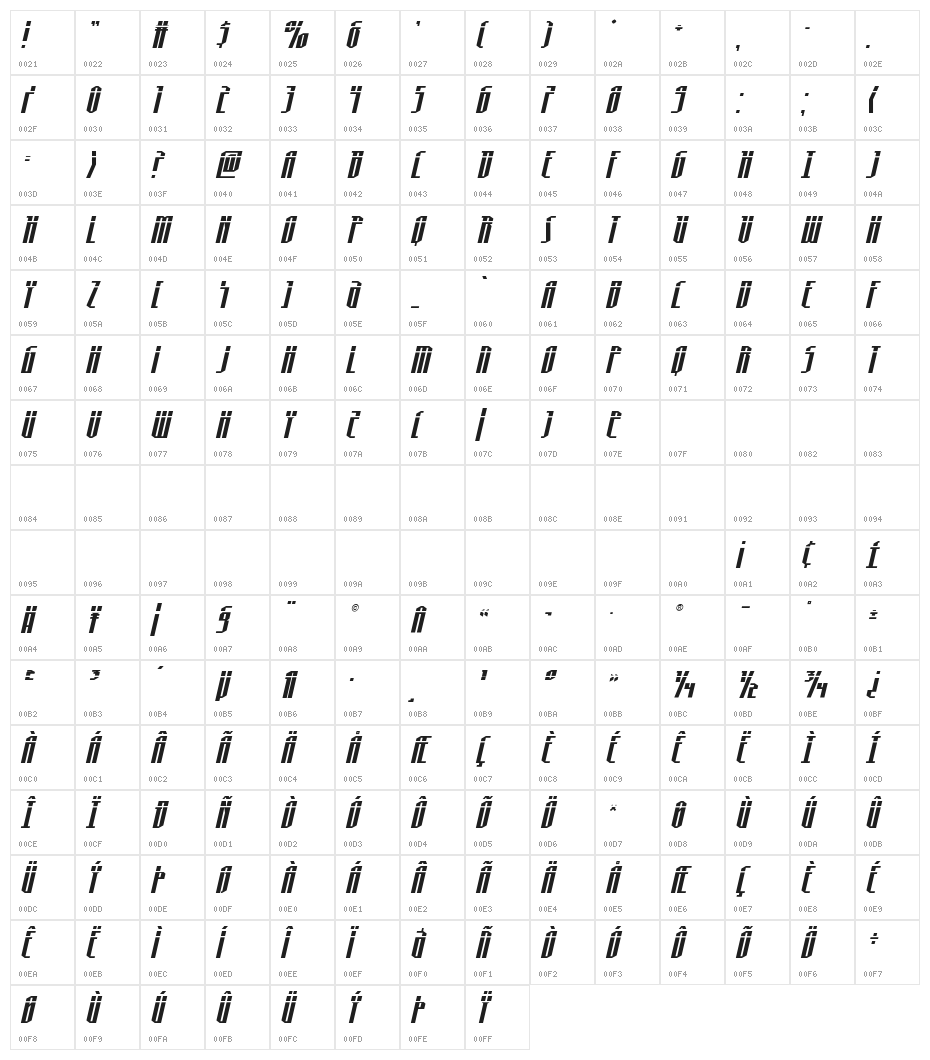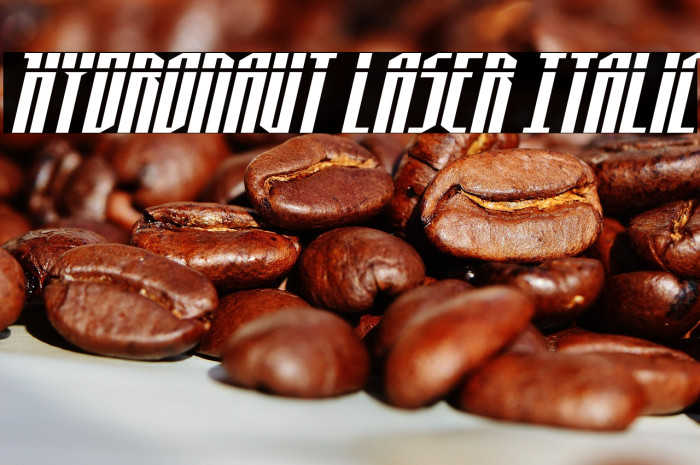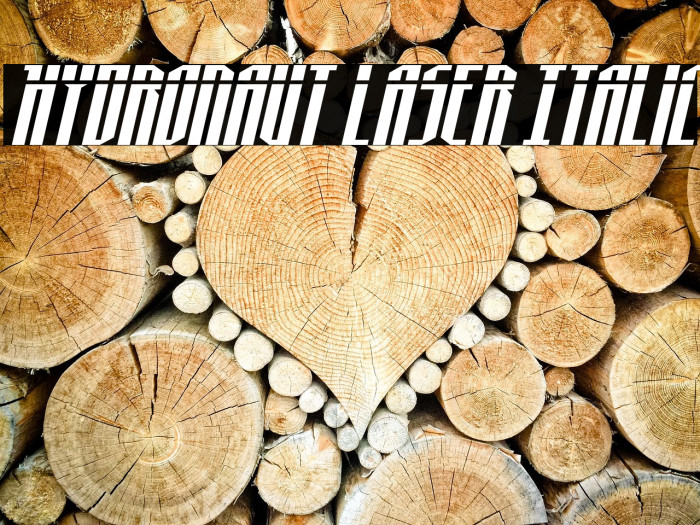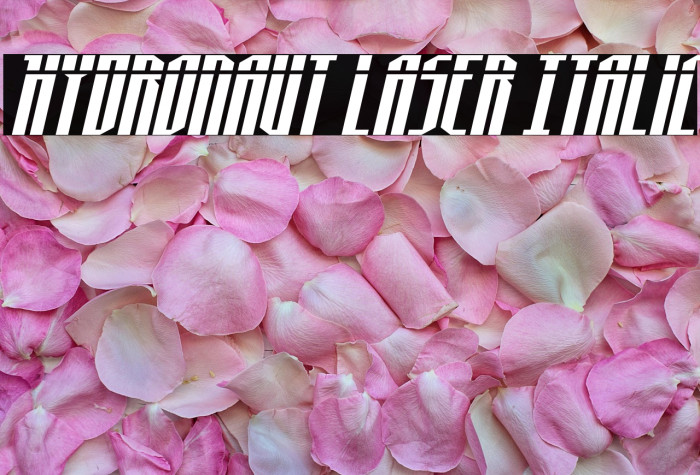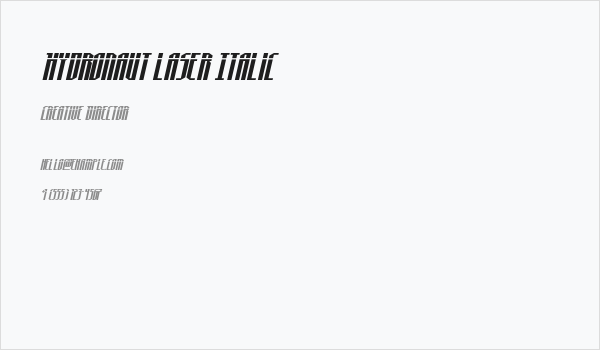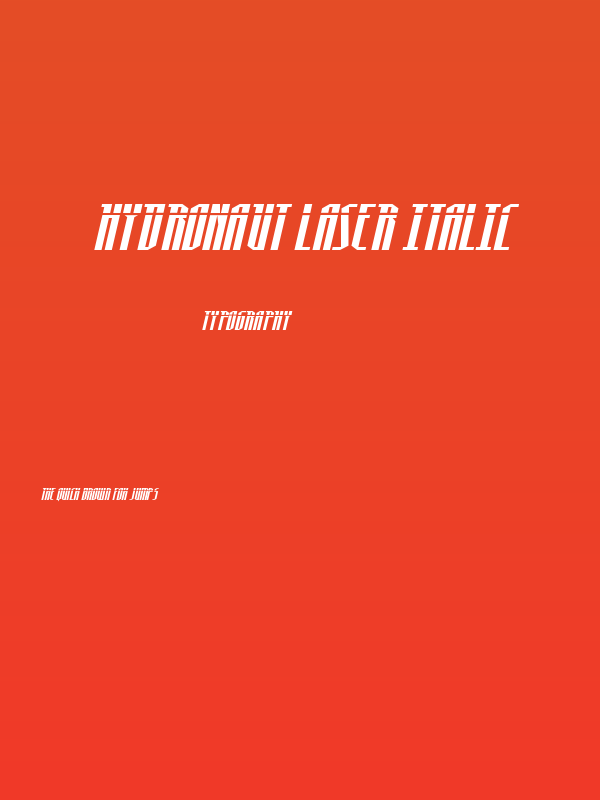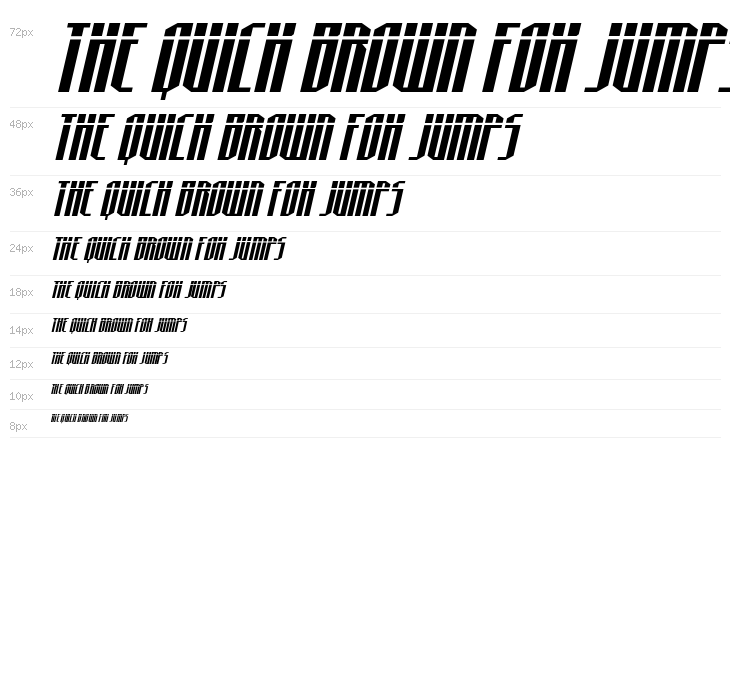
Hydronaut Laser Italic Font
Hydronaut Laser Italic Description
This font features a futuristic and angular design, characterized by its sharp edges and italicized slant. The letters are elongated with a distinct forward lean, giving a sense of motion and speed. The strokes are bold and consistent, with a high contrast between thick and thin lines, enhancing its dynamic appearance. The overall style is reminiscent of sci-fi and technology themes, making it suitable for projects that require a modern and edgy look. The character spacing is tight, which adds to its compact and streamlined feel.
| Proposed Projects | Ideal for sci-fi movie posters, technology branding, video game titles, and futuristic event flyers. |